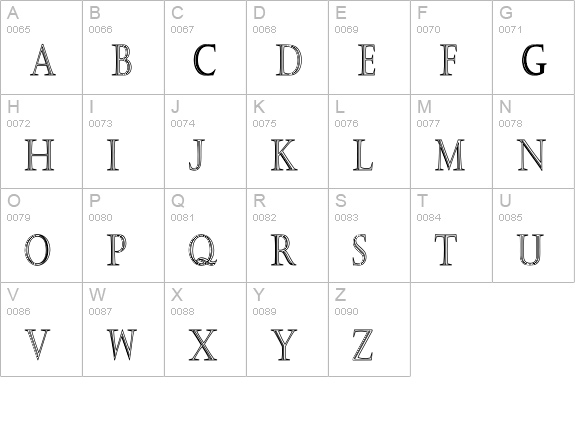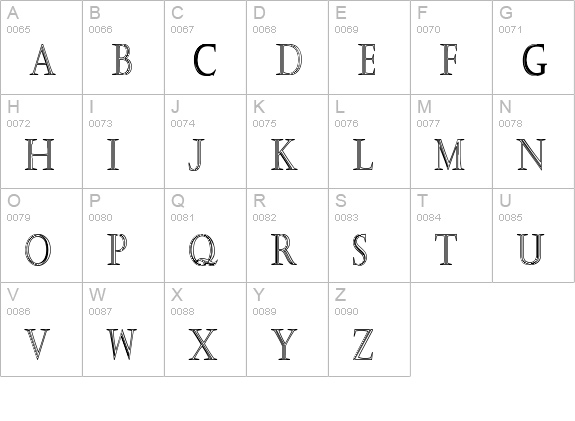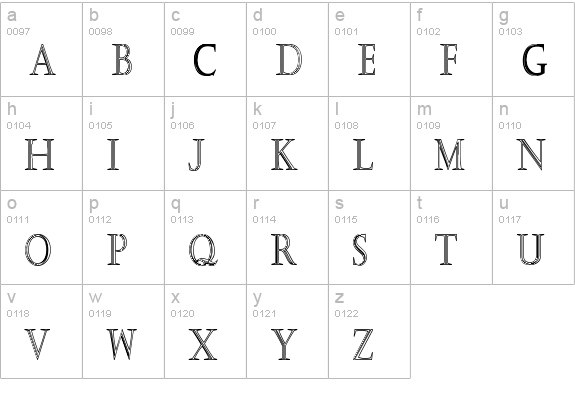
KastellarHC Font Details
Introducing KastellarHC, a captivating and versatile font that is sure to add a touch of elegance and sophistication to any design project. With its bold and graceful letterforms, KastellarHC stands out from the crowd, making a bold statement while remaining effortlessly legible. This remarkable font embodies the perfect balance between modernity and classic charm, making it suitable for a wide range of applications. Whether you are designing a logo, creating eye-catching headlines, or crafting beautiful invitations, KastellarHC will effortlessly elevate your design to new heights. One of the most remarkable aspects of KastellarHC is that it is free. Yes, you read that right! This stunning font is freely available to download at FontsMarket.com. Now you can enjoy the beauty and versatility of KastellarHC without breaking the bank. The meticulous attention to detail in the design of KastellarHC is evident in every stroke and curve. Each letter is meticulously crafted to ensure a harmonious flow and a visually pleasing aesthetic. The result is a font that exudes confidence and sophistication, leaving a lasting impression on anyone who encounters it. With a wide range of weights and styles, KastellarHC offers endless possibilities for creative expression. Whether you prefer a bold and impactful look or a more delicate and refined approach, KastellarHC has the perfect option for you. So why wait? Unleash your creativity and elevate your designs with the captivating beauty of KastellarHC. Download it for free today at FontsMarket.com and experience the transformative power of this remarkable font.